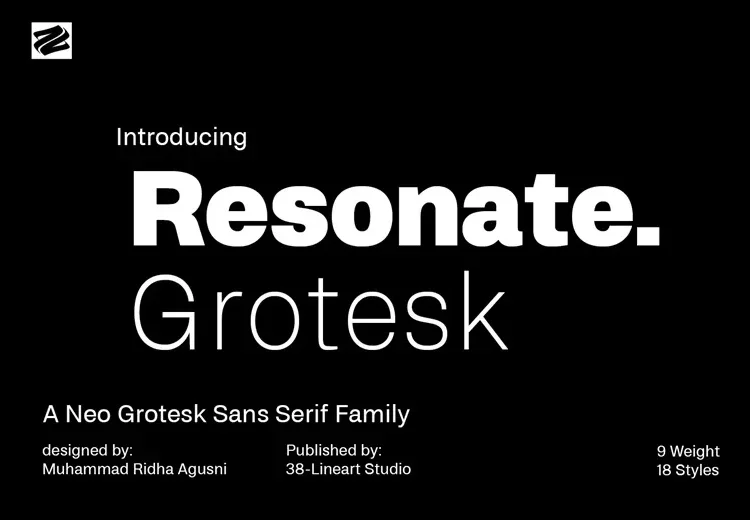
Resonate Grotesk Font
Resonate is a versatile neo-grotesk sans serif font that merges modern design with classic aesthetics, making it ideal for both print and digital applications. Whether you’re working on editorial projects, corporate branding, or advertising, this font is carefully crafted to offer a wide array of weights and styles, ensuring the perfect expression of various emotions and messages.
Its clean, streamlined appearance projects a professional and businesslike vibe, yet its flexibility allows it to shine in different design contexts. Whether you’re designing a corporate identity or working on publishing layouts, Resonate adds a contemporary polish to your projects, offering a look that is both modern and timeless.
Not only does Resonate enhance the visual appeal of your designs, but it also ensures exceptional readability across print and screen formats. This font supports a wide range of languages and comes with OpenType features, making it adaptable for global use and different design scenarios.